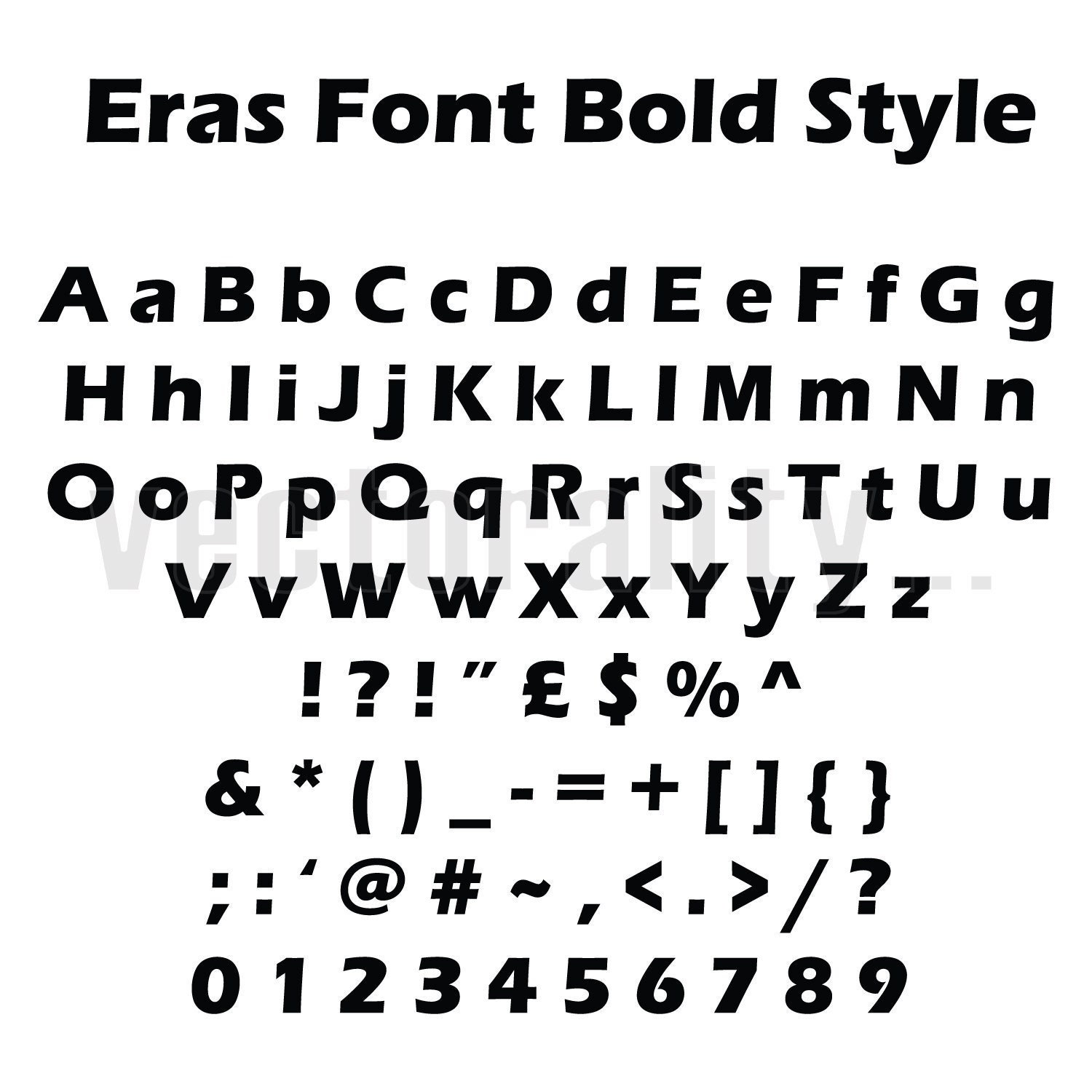
Eras Font Family
Eras Font Family - Web itc eras font family was designed by albert hollenstein, albert boton and published by itc. With our font generator, you can design beautiful fonts for your text. Web eras font is the most appealing typeface ever because of its slightly italic character and linear letters. Our font generator offers a selection of. Itc eras contains 6 styles and family.
Our font generator offers a selection of. Itc eras contains 6 styles and family. With our font generator, you can design beautiful fonts for your text. Web eras font is the most appealing typeface ever because of its slightly italic character and linear letters. Web itc eras font family was designed by albert hollenstein, albert boton and published by itc.
Web itc eras font family was designed by albert hollenstein, albert boton and published by itc. With our font generator, you can design beautiful fonts for your text. Web eras font is the most appealing typeface ever because of its slightly italic character and linear letters. Itc eras contains 6 styles and family. Our font generator offers a selection of.
Web itc eras font family was designed by albert hollenstein, albert boton and published by itc. Web eras font is the most appealing typeface ever because of its slightly italic character and linear letters. Our font generator offers a selection of. With our font generator, you can design beautiful fonts for your text. Itc eras contains 6 styles and family.
With our font generator, you can design beautiful fonts for your text. Web itc eras font family was designed by albert hollenstein, albert boton and published by itc. Itc eras contains 6 styles and family. Web eras font is the most appealing typeface ever because of its slightly italic character and linear letters. Our font generator offers a selection of.
Web itc eras font family was designed by albert hollenstein, albert boton and published by itc. Our font generator offers a selection of. Web eras font is the most appealing typeface ever because of its slightly italic character and linear letters. Itc eras contains 6 styles and family. With our font generator, you can design beautiful fonts for your text.
Web eras font is the most appealing typeface ever because of its slightly italic character and linear letters. Itc eras contains 6 styles and family. Web itc eras font family was designed by albert hollenstein, albert boton and published by itc. With our font generator, you can design beautiful fonts for your text. Our font generator offers a selection of.
Itc eras contains 6 styles and family. Our font generator offers a selection of. With our font generator, you can design beautiful fonts for your text. Web eras font is the most appealing typeface ever because of its slightly italic character and linear letters. Web itc eras font family was designed by albert hollenstein, albert boton and published by itc.
Web eras font is the most appealing typeface ever because of its slightly italic character and linear letters. With our font generator, you can design beautiful fonts for your text. Web itc eras font family was designed by albert hollenstein, albert boton and published by itc. Itc eras contains 6 styles and family. Our font generator offers a selection of.
Itc eras contains 6 styles and family. Web itc eras font family was designed by albert hollenstein, albert boton and published by itc. With our font generator, you can design beautiful fonts for your text. Web eras font is the most appealing typeface ever because of its slightly italic character and linear letters. Our font generator offers a selection of.
Web eras font is the most appealing typeface ever because of its slightly italic character and linear letters. Itc eras contains 6 styles and family. Web itc eras font family was designed by albert hollenstein, albert boton and published by itc. With our font generator, you can design beautiful fonts for your text. Our font generator offers a selection of.
Web eras font is the most appealing typeface ever because of its slightly italic character and linear letters. With our font generator, you can design beautiful fonts for your text. Web itc eras font family was designed by albert hollenstein, albert boton and published by itc. Our font generator offers a selection of. Itc eras contains 6 styles and family.
Itc eras contains 6 styles and family. Web itc eras font family was designed by albert hollenstein, albert boton and published by itc. Our font generator offers a selection of. Web eras font is the most appealing typeface ever because of its slightly italic character and linear letters. With our font generator, you can design beautiful fonts for your text.
Itc eras contains 6 styles and family. Web itc eras font family was designed by albert hollenstein, albert boton and published by itc. Web eras font is the most appealing typeface ever because of its slightly italic character and linear letters. Our font generator offers a selection of.